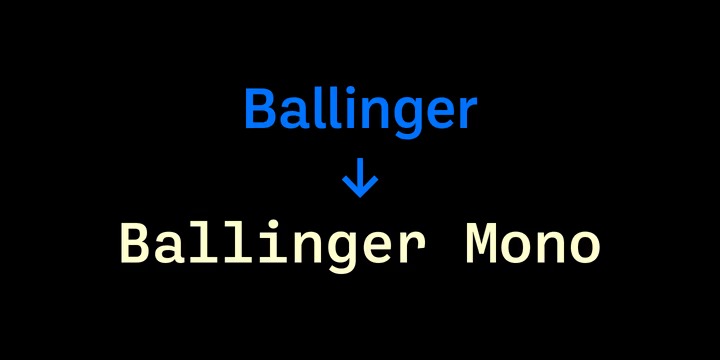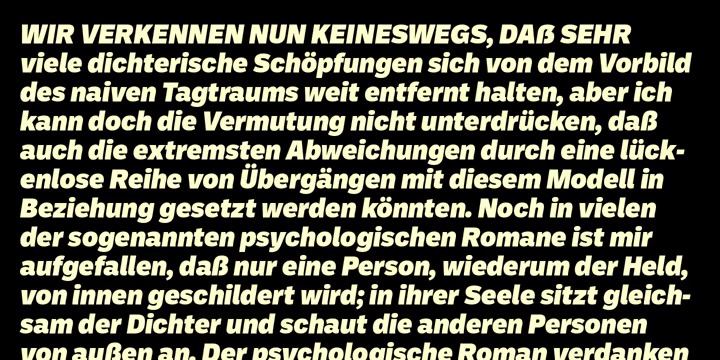
Ballinger Font Family
Ballinger Sans Serif Font
This font is a generic and neutral typeface but with enough personality to be different, but not as much to be unfamiliar. The family takes its name from Raymond A. Ballinger, the great mid-century American designer, author of ‘Lettering Art in Modern Use,’ and champion of elegance and readability. Ballinger has large counters and a generous x-height. Letters like a, e, and s open out gradually as they move from Thin to Black to maintain ample apertures, even in the darkest weights. Semi-oldstyle figures are available, as well as case-sensitive punctuation and delimiters. Italics incorporate subtle ogee curves to lend warmth and energy to the page or screen.